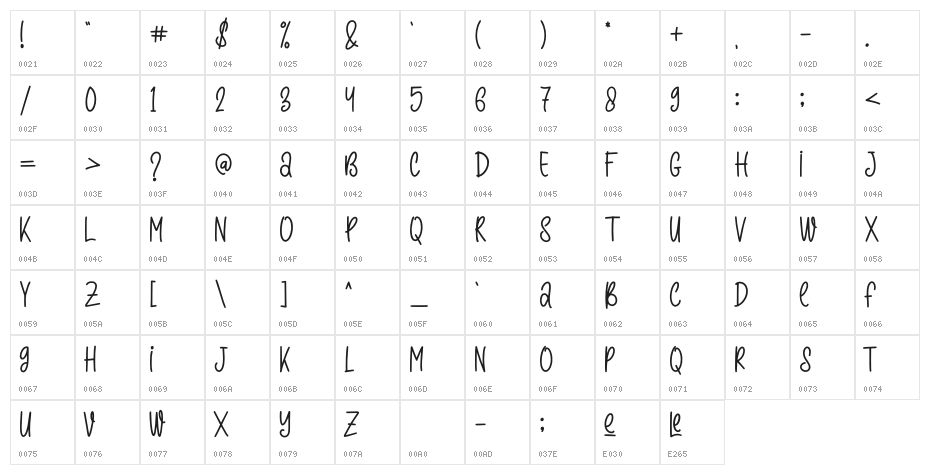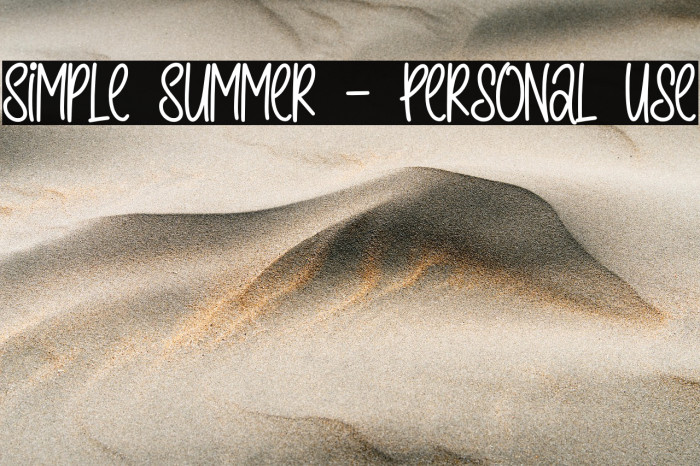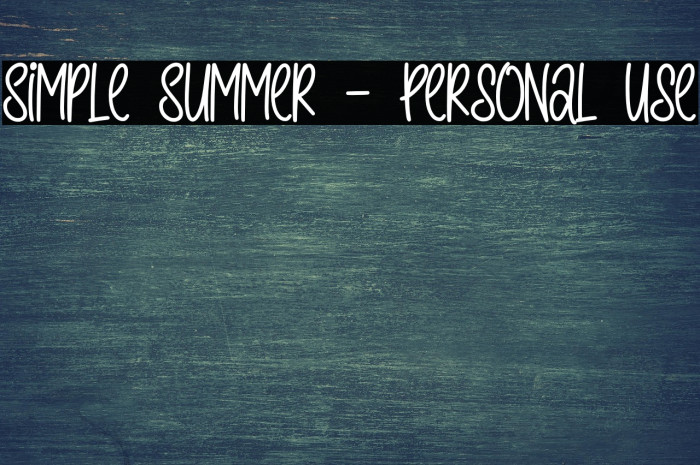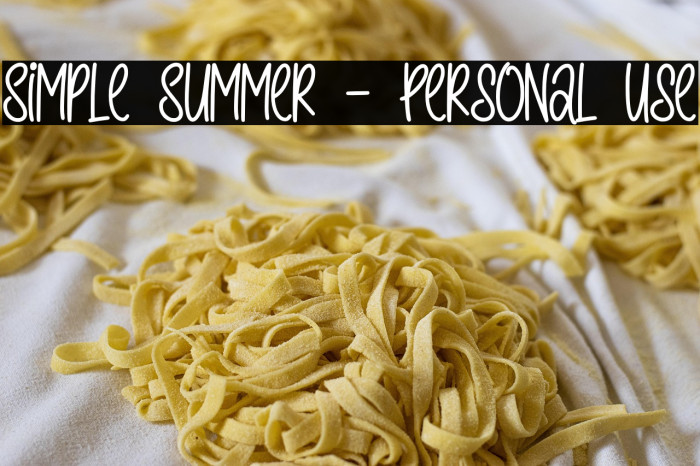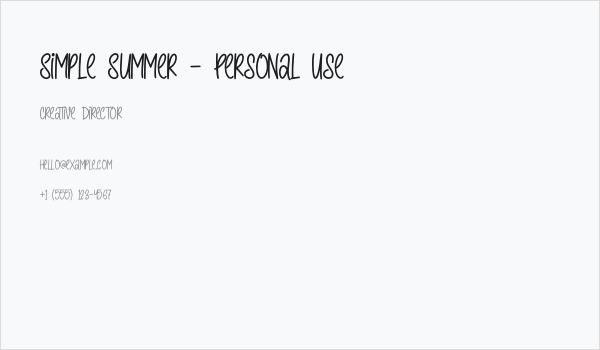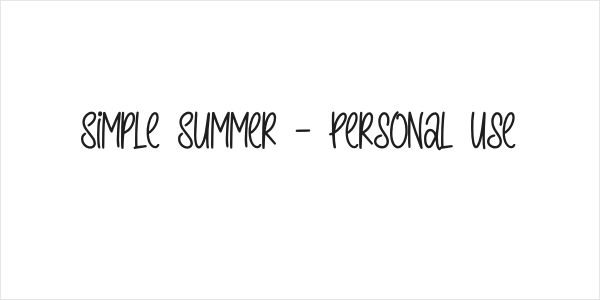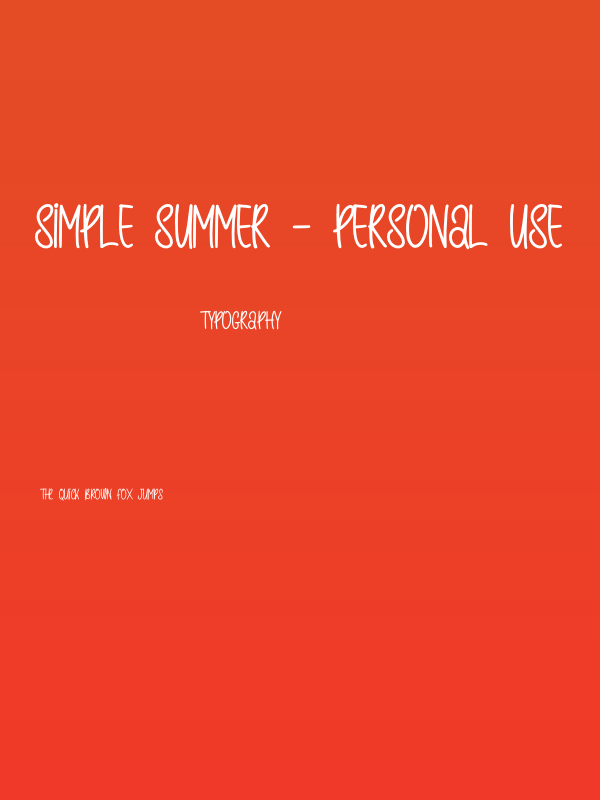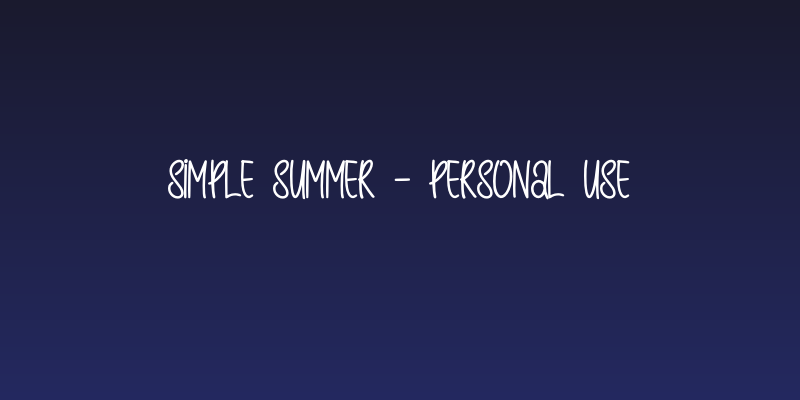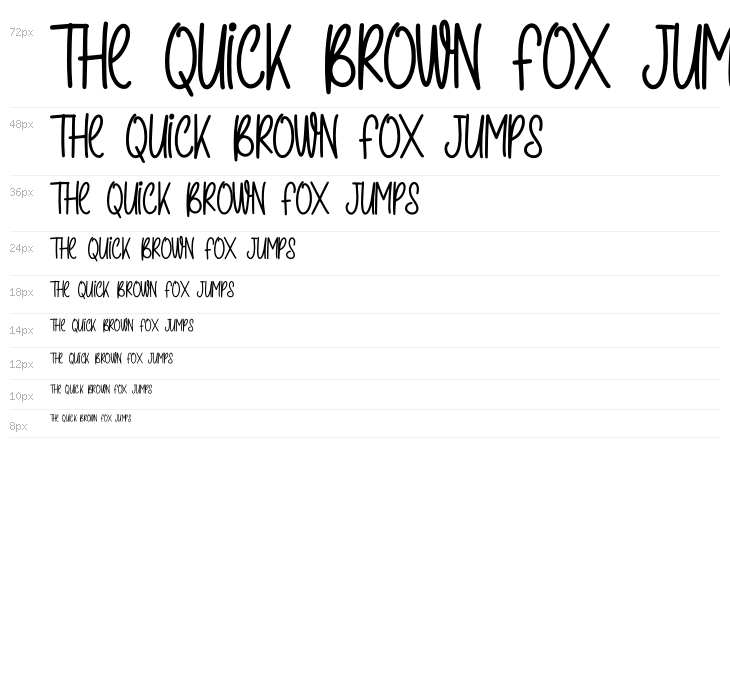
Simple Summer - Personal Use Font
Simple Summer - Personal Use Description
This font features a playful and casual handwritten style, characterized by its smooth, flowing lines and slightly irregular shapes. The letters are tall and narrow, giving them a unique, elongated appearance that adds to the font's whimsical charm. The strokes are consistent in thickness, providing a uniform look across all characters. This font includes both uppercase and lowercase letters, numbers, and a variety of special characters, making it versatile for different uses. Its informal style is perfect for projects that require a personal touch, such as greeting cards, invitations, or social media graphics.